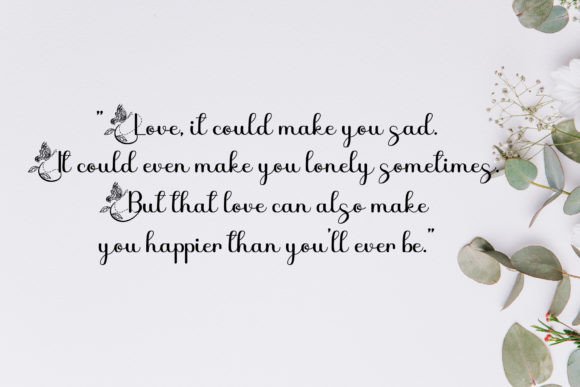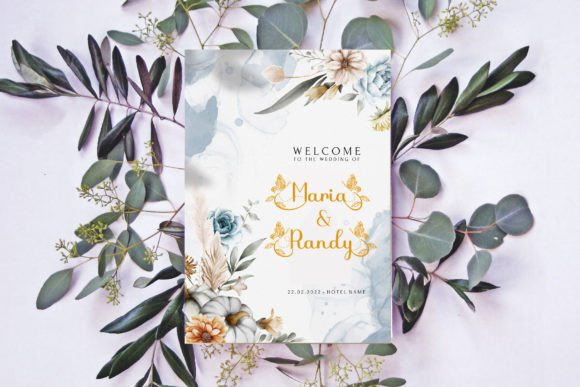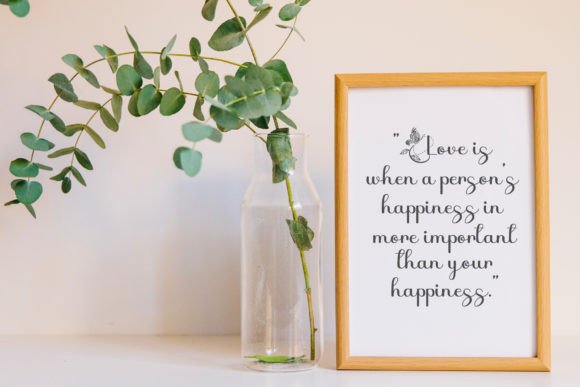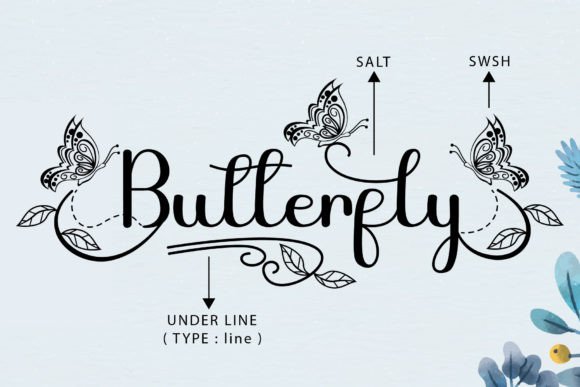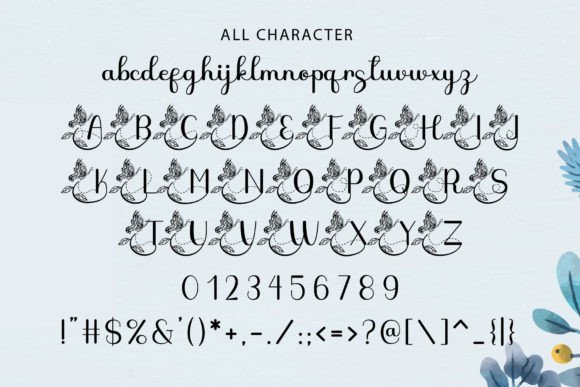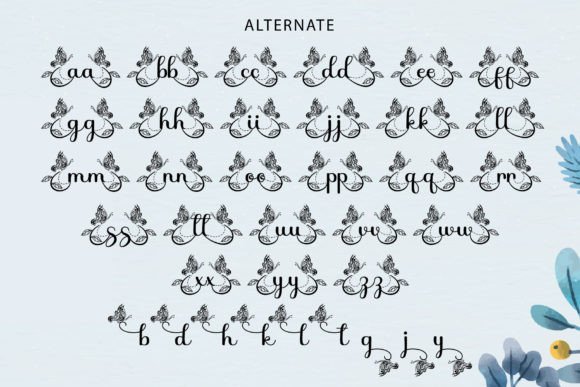
Introducing Butterfly Font: Elevate Your Designs with Elegance
Are you a designer or crafter looking for a font that exudes elegance and sophistication? Look no further than the Butterfly Font, a stunning decorative handwritten font that is sure to take your designs to the next level. In this article, we’ll dive into the features and benefits of the Butterfly Script font, and explore how it can be used to create beautiful and eye-catching designs.
What is Butterfly Font?
Butterfly Script is a stylish and incredibly elegant decorative handwritten font that is perfect for adding a touch of whimsy and romance to your designs. With its flowing curves and delicate lines, this font is sure to capture the attention of your audience and leave a lasting impression. Whether you’re designing wedding invitations, thank you cards, quotes, greeting cards, logos, business cards, or any other type of design that needs a handwritten touch, the Butterfly Font is the perfect choice.
Key Features of Butterfly Font
So, what sets the Butterfly Font apart from other fonts? Here are some of its key features:
- PUA Encoded: The Butterfly Font is PUA (Private Use Area) encoded, which means that you can access all of the glyphs and alternates with ease. This makes it simple to customize your designs and add your own personal touch.
- Elegant and Decorative: The Butterfly Font is a decorative handwritten font that is both elegant and sophisticated. Its flowing curves and delicate lines make it perfect for designs that require a touch of whimsy and romance.
- Versatile: The Butterfly Font is versatile and can be used for a wide range of designs, including wedding invitations, thank you cards, quotes, greeting cards, logos, business cards, and more.
How to Use Butterfly Font in Your Designs
Using the Butterfly Font in your designs is easy. Here are a few tips to get you started:
- Wedding Invitations: The Butterfly Font is perfect for wedding invitations, adding a touch of romance and elegance to your designs.
- Thank You Cards: Use the Butterfly Font to create beautiful and personalized thank you cards that will leave a lasting impression on your recipients.
- Quotes and Greeting Cards: The Butterfly Font is ideal for quotes and greeting cards, adding a touch of whimsy and personality to your designs.
- Logos and Business Cards: Use the Butterfly Font to create elegant and sophisticated logos and business cards that will help you stand out from the crowd.
Tips for Getting the Most Out of Butterfly Font
Here are a few tips for getting the most out of the Butterfly Font:
- Use it with Other Fonts: The Butterfly Font pairs well with other fonts, so don’t be afraid to use it in combination with other fonts to create a unique and eye-catching design.
- Take Advantage of PUA Encoding: Make sure to take advantage of the PUA encoding feature, which allows you to access all of the glyphs and alternates with ease.
Whether you’re a seasoned designer or a crafter just starting out, the Butterfly Font is a must-have font that is sure to inspire your creativity and take your designs to the next level.